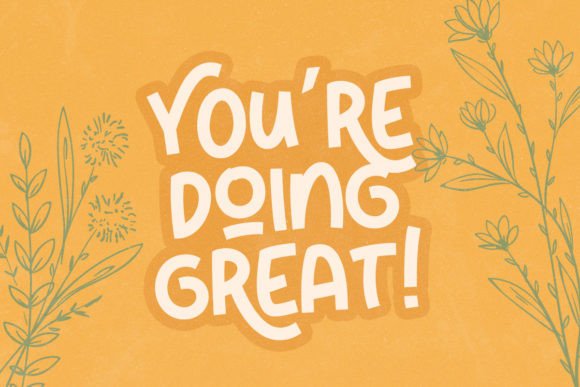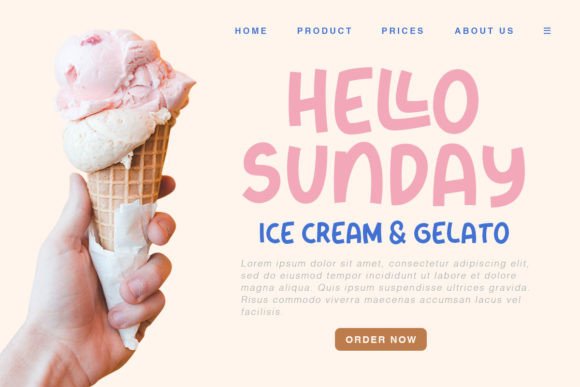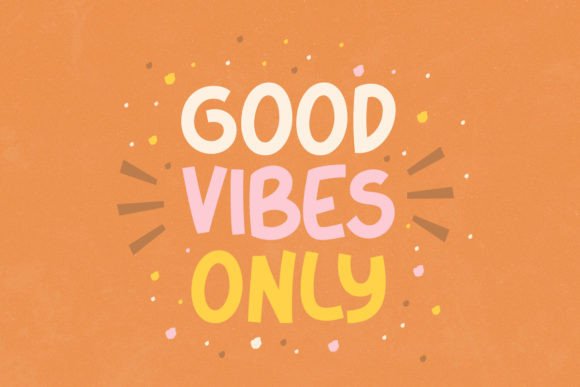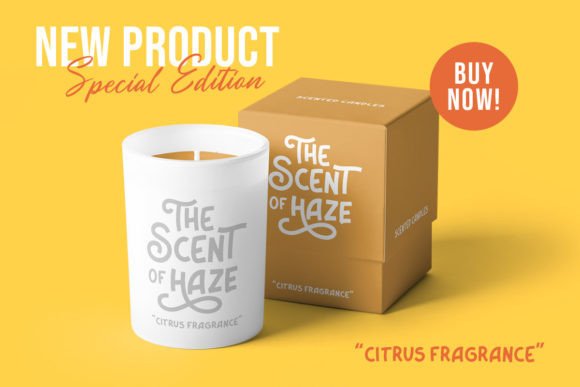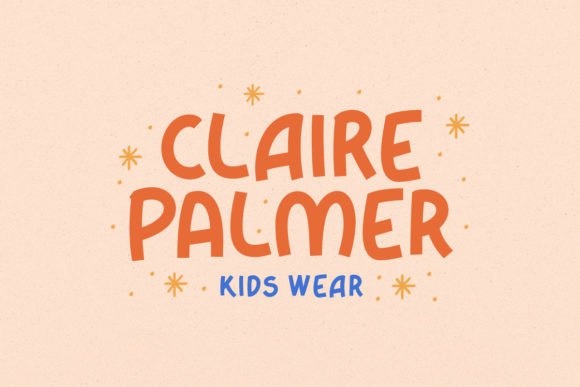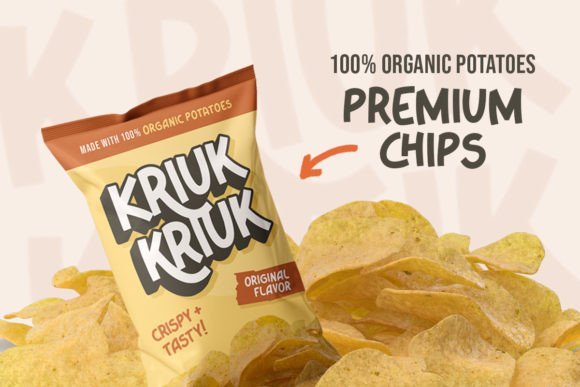
Designing with Whimsy: Introducing the Bunny Galore Font
Have you ever stared at a blank page, trying to conjure up the perfect design concept, only to be struck by the idea of something cute, playful, and utterly charming? For designers like us, those moments are a spark of creativity waiting to ignite our imagination. And that’s exactly what happens when you discover the Bunny Galore Font – a delightful display font that brings a touch of whimsy to your designs.
This charming font is designed to add personality and vibrancy to your work, making it a valuable addition to any designer’s toolkit. Whether you’re creating illustrations for children’s books, packaging for a new product, or social media graphics that need a bit of flair, the Bunny Galore Font is sure to bring your designs to life.
Bunny Galore Font Key Features
• Font Family: Bunny Galore
• Unique Characteristics: Whimsical, hand-drawn design with a mix of cursive and script elements, ideal for children’s books, greeting cards, and other creative projects
Bunny Galore Font Review
I’ve had the chance to work with the Bunny Galore Font, and here’s my honest review:
• The font’s whimsical and playful nature makes it perfect for children’s books, Easter-themed designs, and other lighthearted projects.
• The font is highly customizable, allowing you to adjust the color, size, and style to suit your design needs.
• The font’s intricate details and flourishes add a touch of sophistication, making it suitable for more elegant designs as well.
• The font may not be suitable for corporate or formal designs, as its playful nature may not align with more serious brand identities.
• The font’s complexity may make it difficult to use in small text sizes or when working with limited design space.
• The font’s unique style may not appeal to everyone’s taste, and some designers may find it too cutesy or overbearing.
The Bunny Galore Font is a versatile and charming font that can add a touch of personality to various design projects. While it may have some limitations, its customization options and intricate details make it a valuable asset for designers looking to add a playful twist to their work.
Tips for Getting the Most Out of Bunny Galore Font
Here are some tips to help you get the most out of the Bunny Galore Font:
• Use the font in combination with colorful graphics and images to create a playful and whimsical design.
• Experiment with different font sizes and styles to add visual interest to your design.
• Use the font to create a consistent brand identity across all